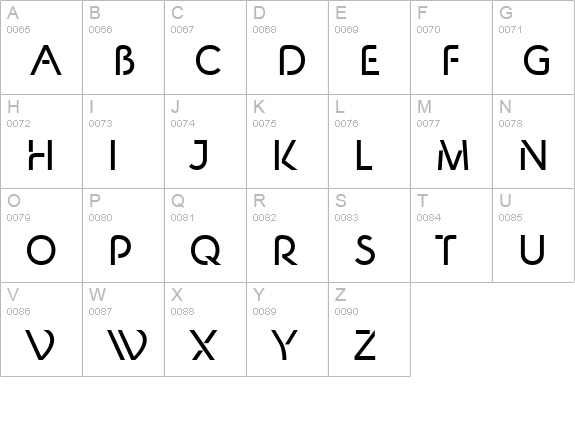
New Shape Font Details
Introducing the captivating and innovative New Shape font, a mesmerizing display of typographic artistry. This extraordinary typeface breaks free from the constraints of traditional design, offering a fresh and dynamic approach to typography that is sure to captivate any audience. With its unique and eye-catching letterforms, New Shape pushes the boundaries of creativity, allowing designers to unleash their imagination and create truly remarkable compositions. Each character is meticulously crafted, combining smooth curves and sharp angles to create a perfect balance between elegance and modernity. New Shape is not just a font, it is a work of art that will elevate any project to new heights. Whether used for branding, advertising, or editorial design, this font will instantly grab attention and leave a lasting impression. Its versatility allows it to seamlessly adapt to various design styles, making it a perfect choice for both digital and print applications. What sets New Shape apart is not only its stunning aesthetics but also its accessibility. This remarkable font is freely available to download at FontsMarket.com, ensuring that designers from all walks of life can benefit from its exceptional qualities. By providing this font for free, FontsMarket.com aims to foster creativity and empower designers to create extraordinary works without any limitations. So, unleash your creativity and elevate your designs with the extraordinary New Shape font. Download it for free today at FontsMarket.com and experience the endless possibilities that this remarkable typeface has to offer.